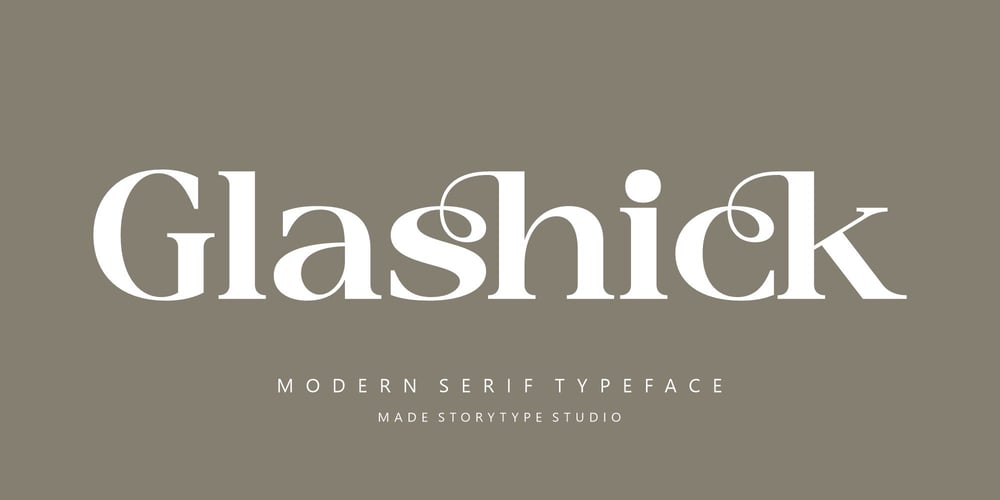
Glashick Font Family was designed by Heru Utama Putra and published by Letterena Studios. Glashick contains 2 styles and family package options. Glashick is a modern serif font with a unique style and exquisite look. This typeface is perfect for an elegant & luxury logo, book or movie title design, fashion brand, magazine, clothes, lettering, quotes, and so much more. This font is PUA encoded, which means you can access all of the glyphs and swashes with ease!